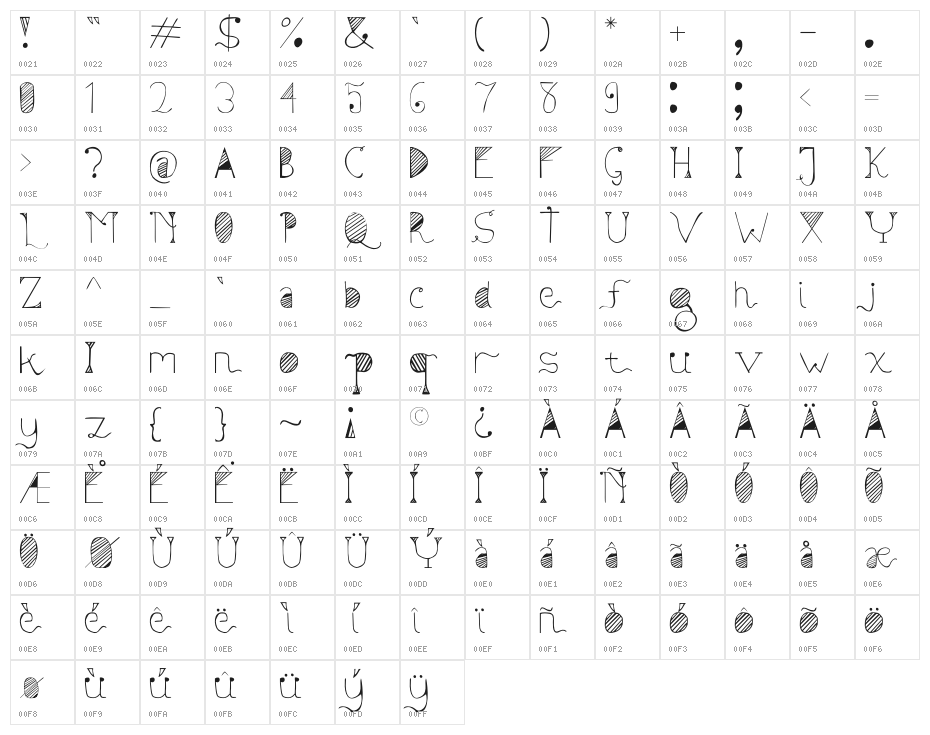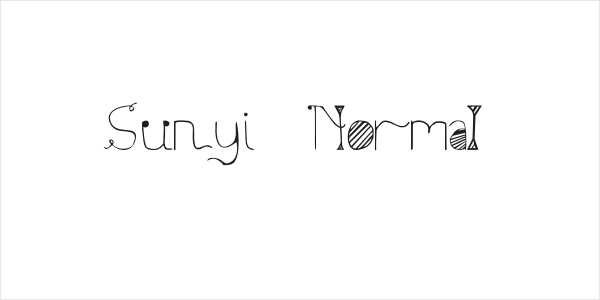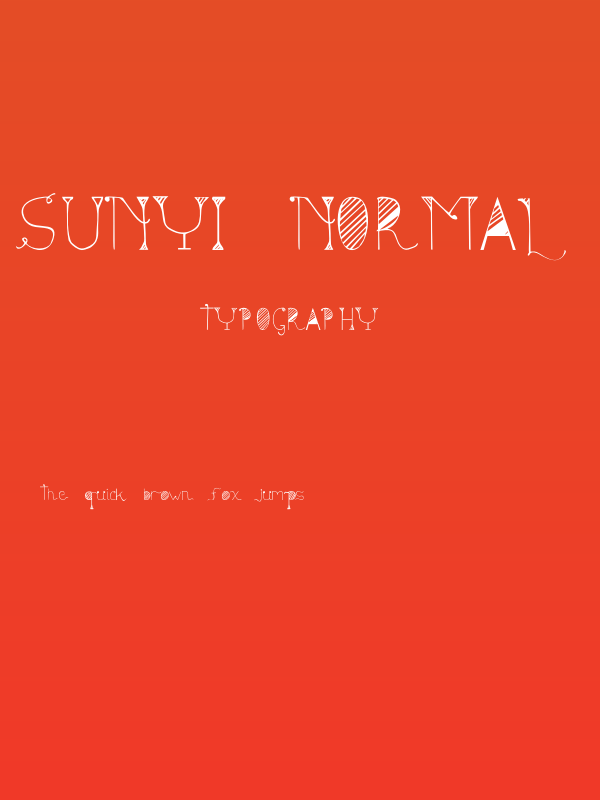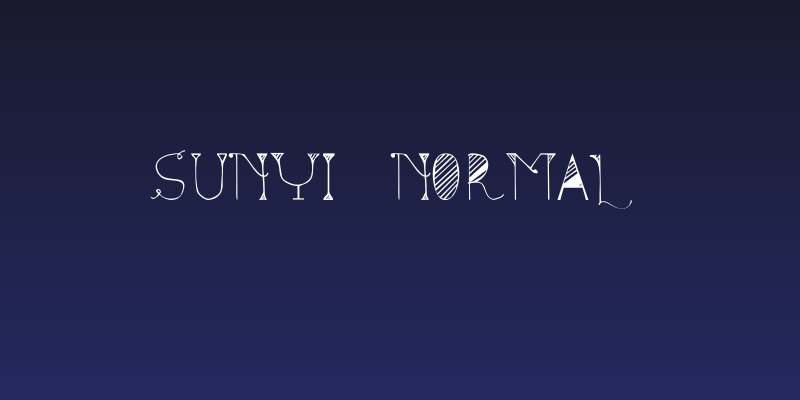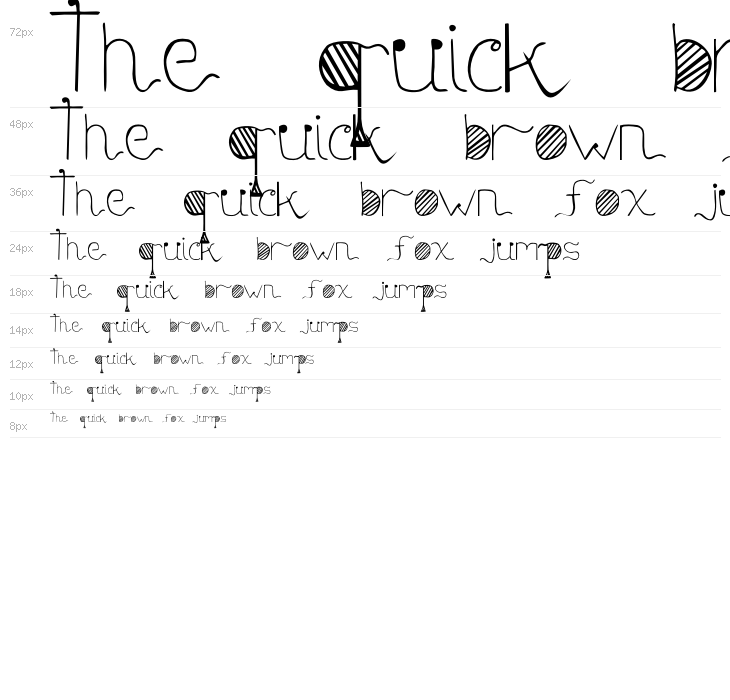
Sunyi Normal Font
Sunyi Normal Description
This font features a whimsical and artistic design, characterized by its playful and decorative elements. Each letter is uniquely crafted with a mix of geometric patterns and flowing lines, creating a sense of movement and creativity. The uppercase letters often incorporate diagonal lines and curves, while the lowercase letters maintain a more fluid and organic appearance. The numbers and special characters continue this theme, with some characters featuring striped or dotted patterns. Overall, this font exudes a sense of fun and artistic flair, making it ideal for creative projects.
| Proposed Projects | Ideal for creative projects such as children's book covers, artistic posters, and playful branding materials. |